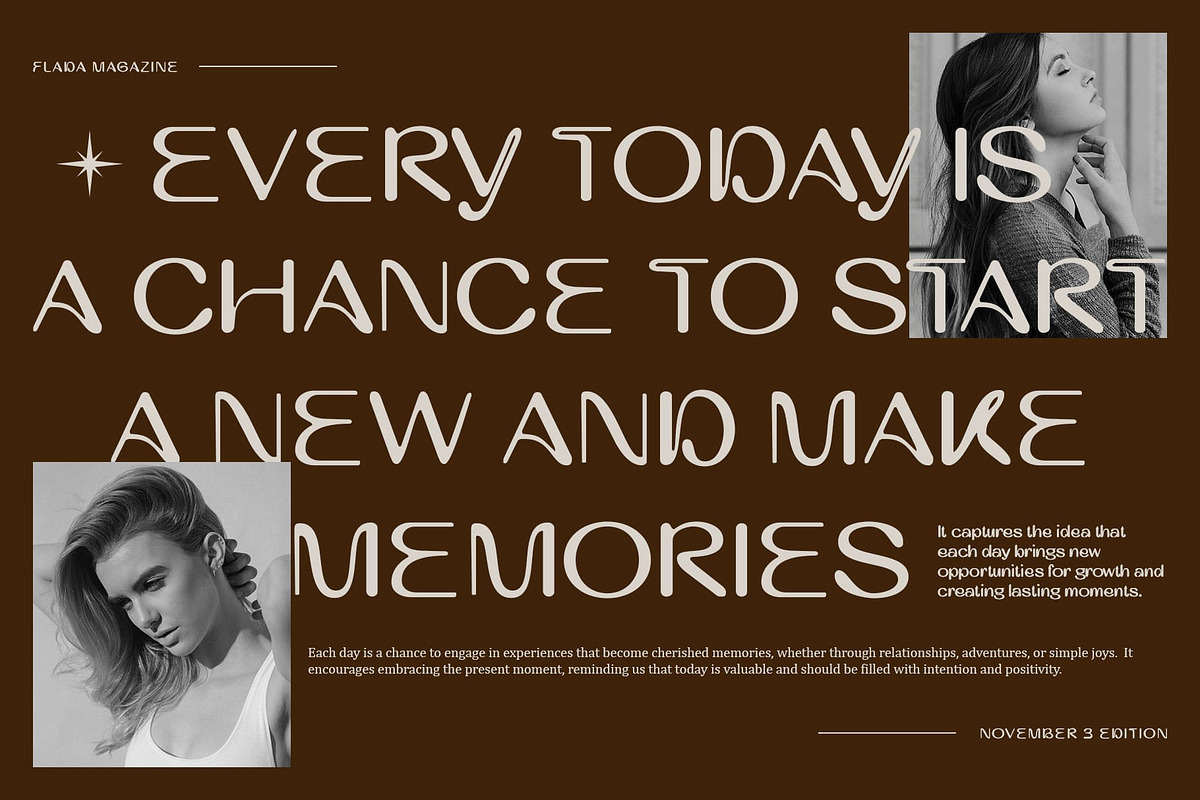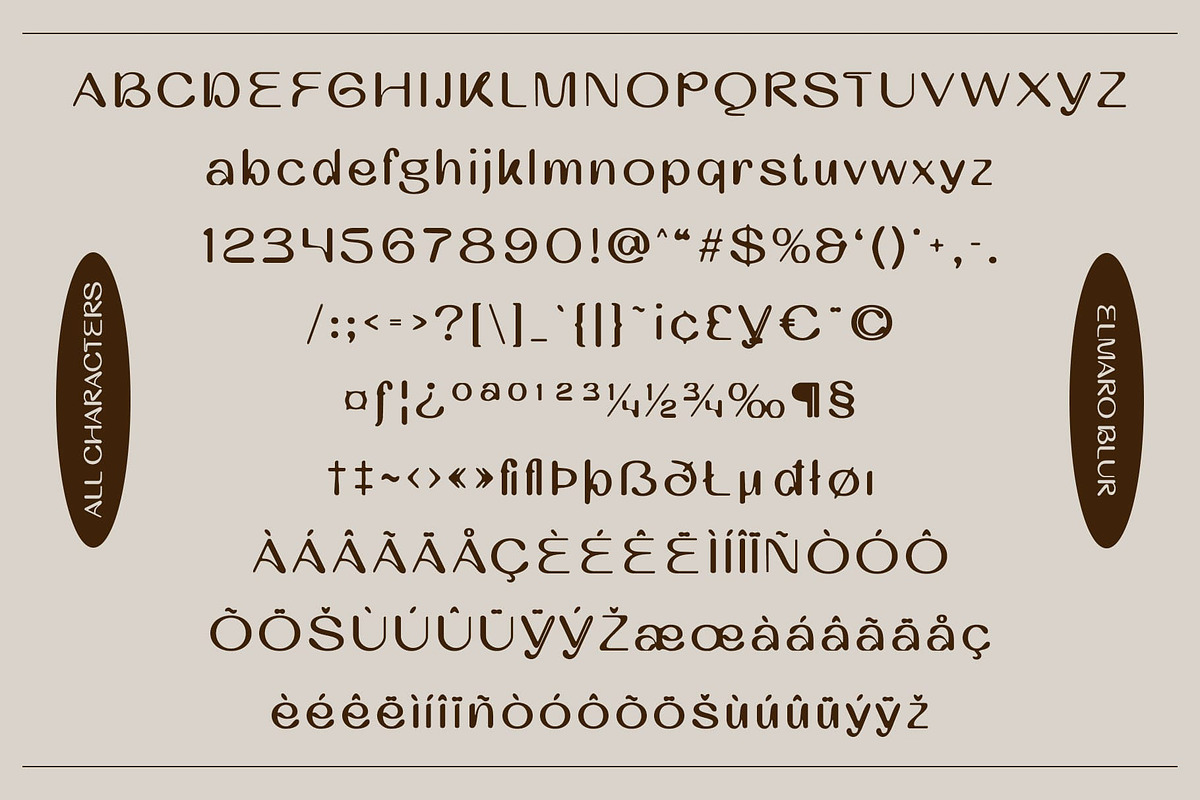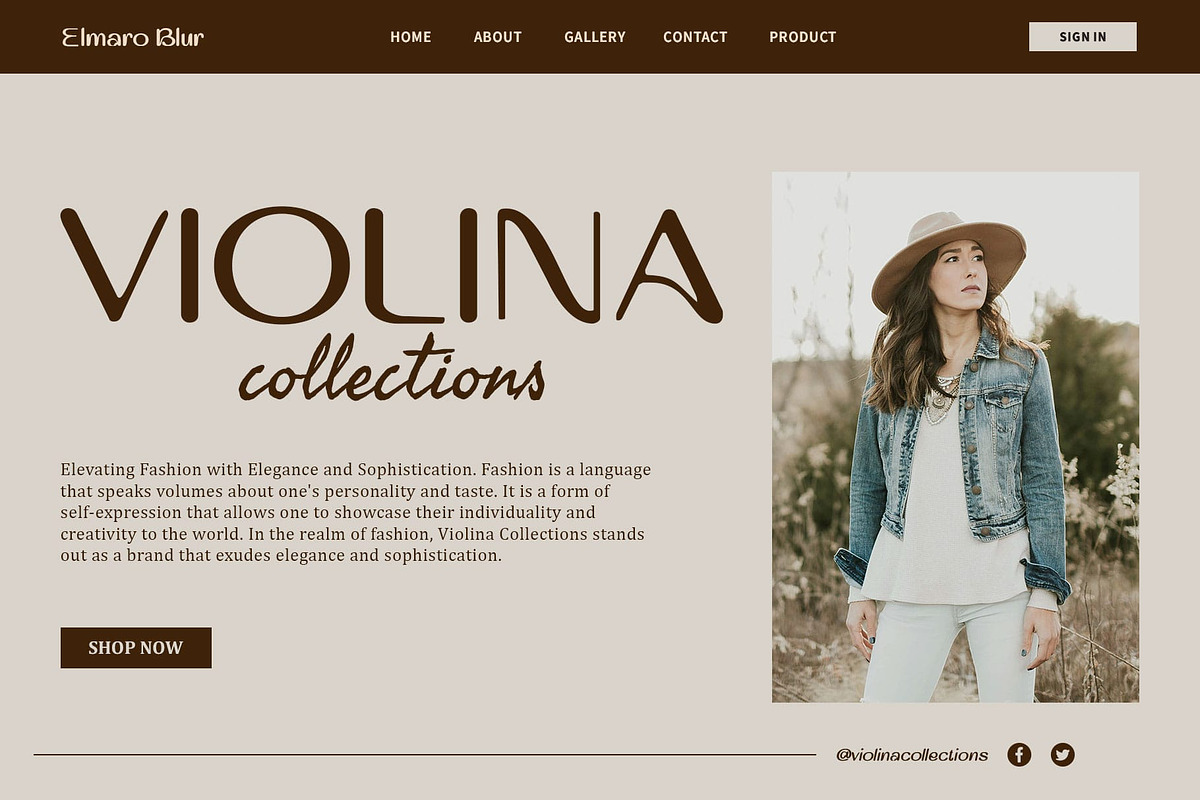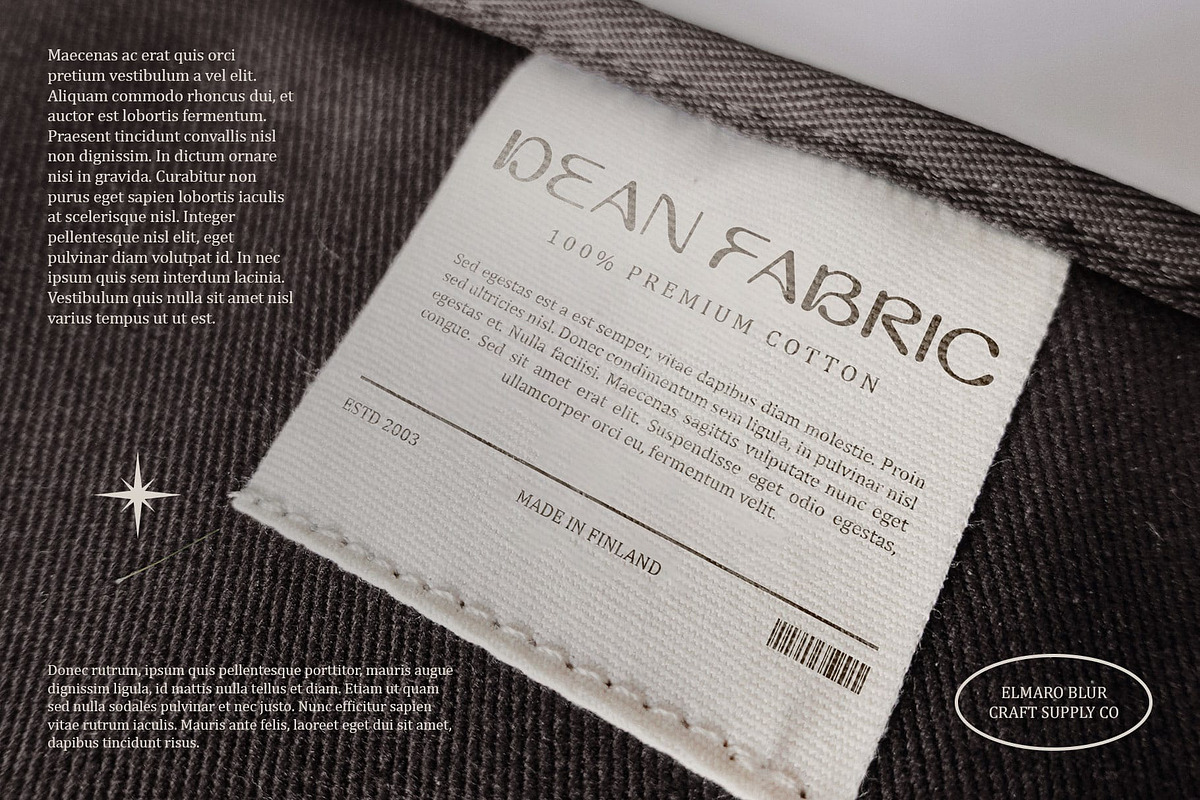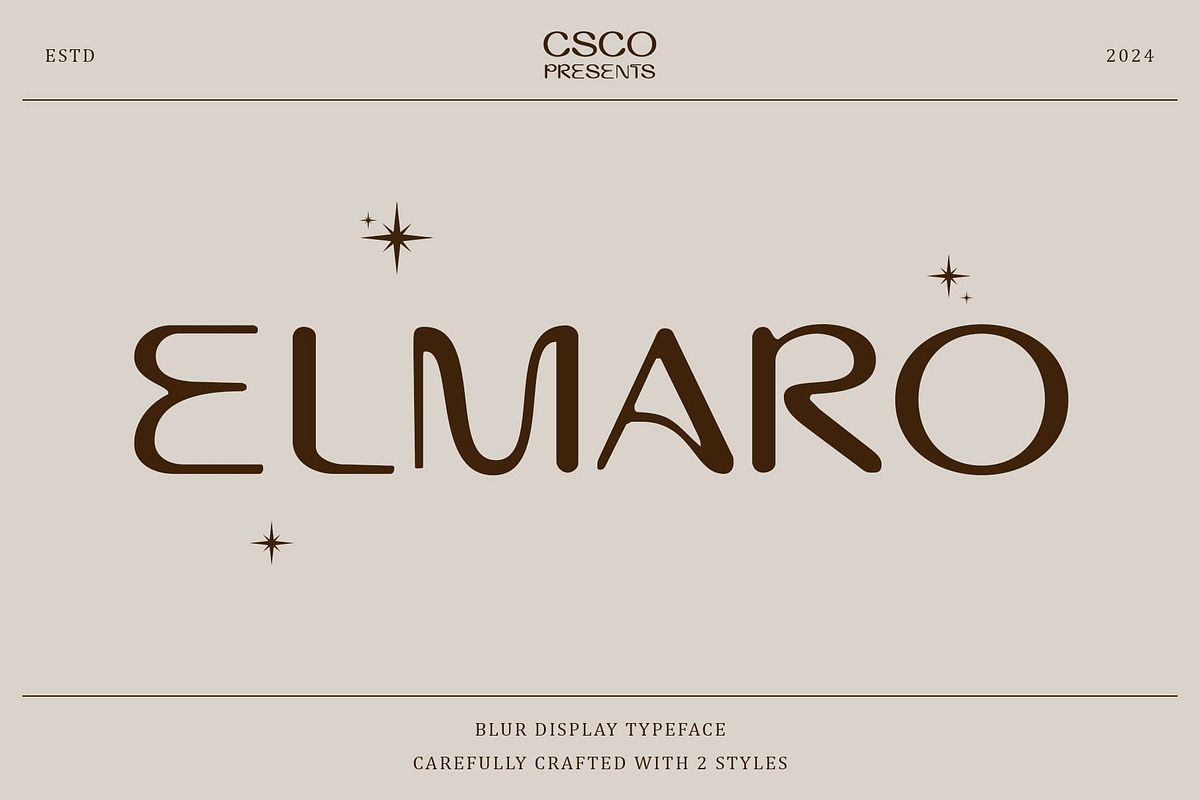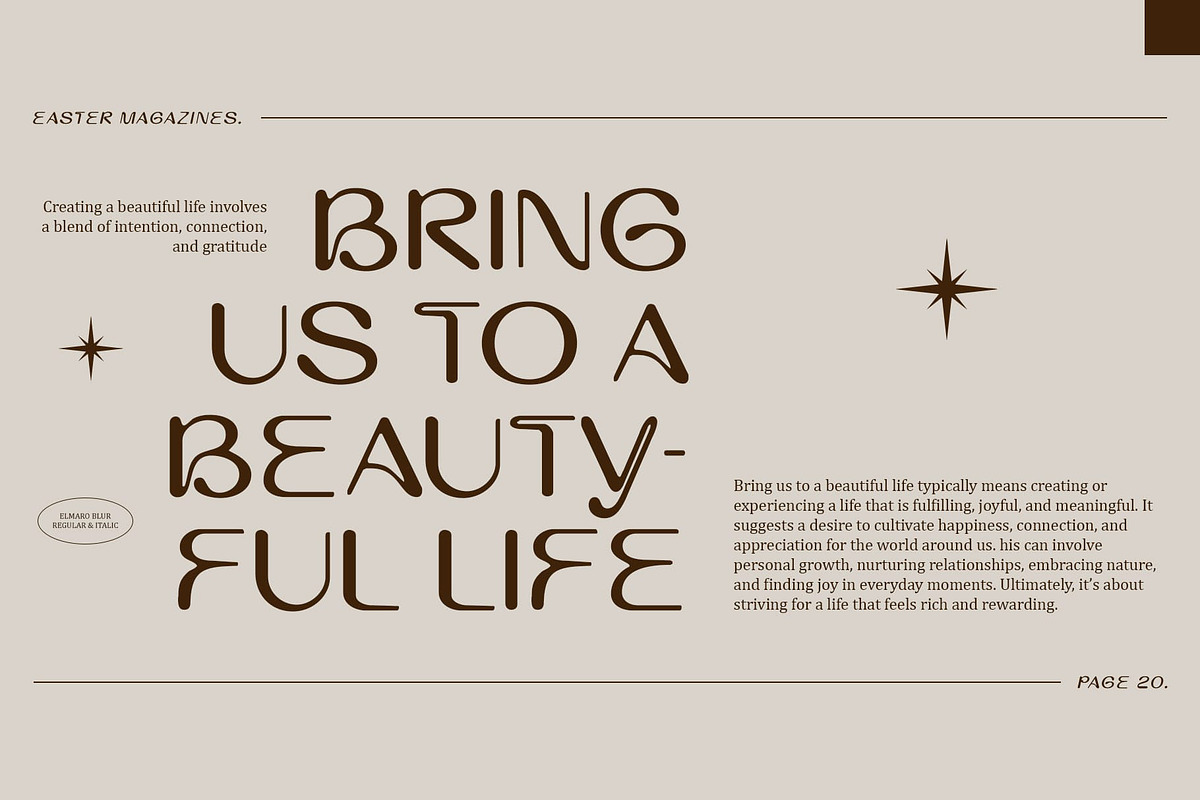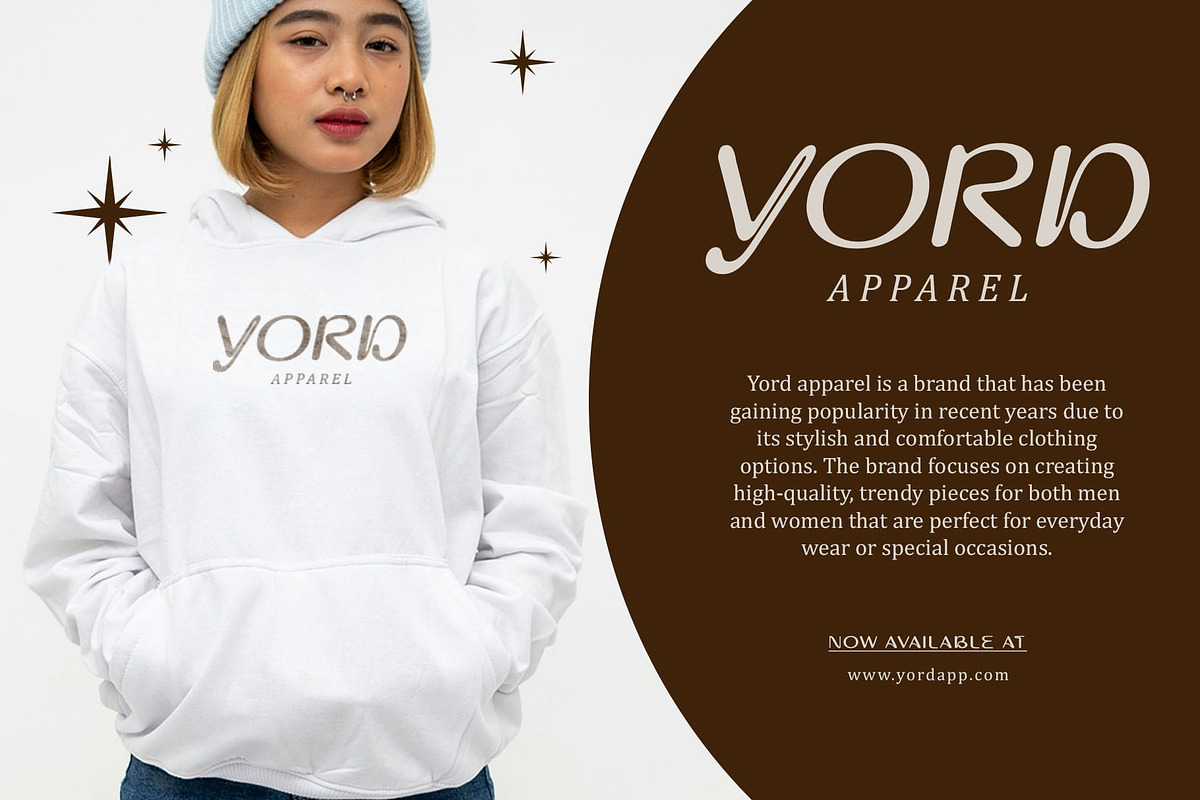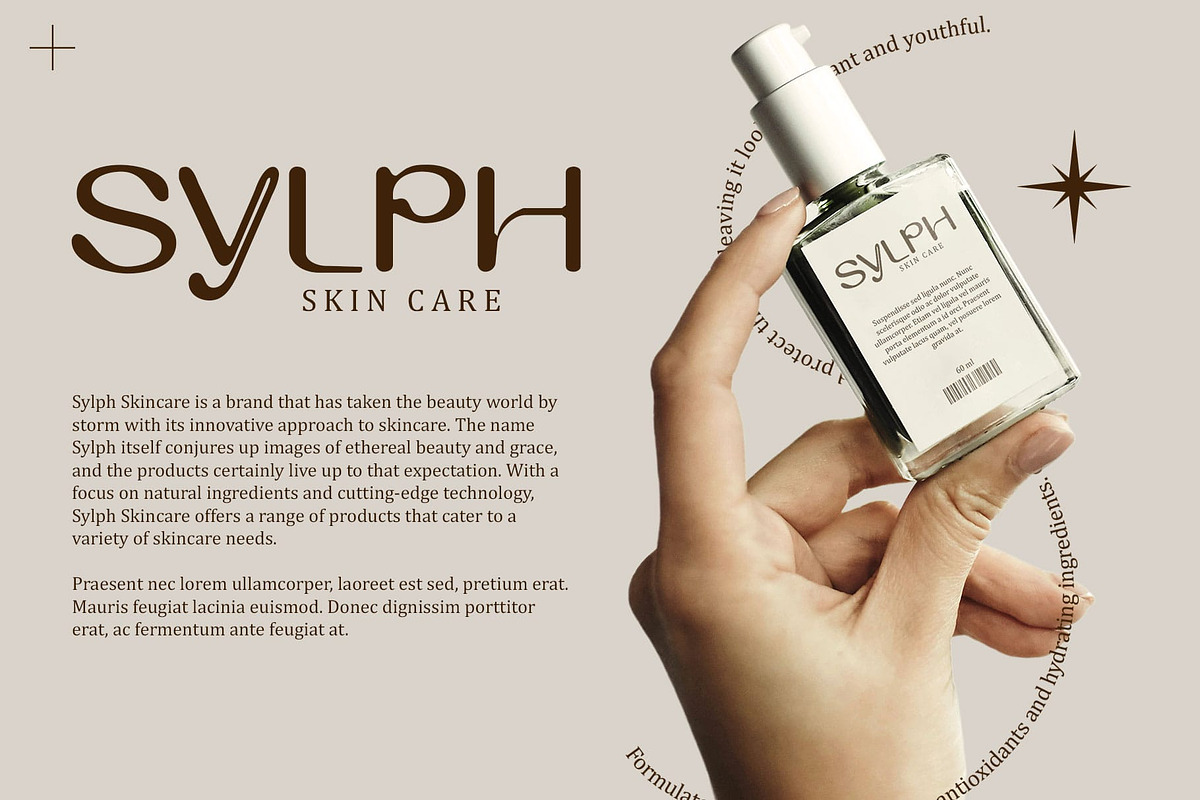
Elmaro Blur
Elmaro Blur: Futuristic Display Font with a Sci-Fi Twist
Inspired by Spacecraft and Alien Technology Elmaro Blur is a modern display font that draws inspiration from the otherworldly visuals of spacecraft and alien technology. This unique design element gives the font a futuristic and ethereal appearance, perfect for cutting-edge projects.
Enhanced with a Blur Effect The blur effect enhances the font’s visual appeal, adding a sense of motion and depth that makes your designs stand out. This feature creates a captivating and dynamic look, ideal for futuristic and innovative designs.
Ideal for Sci-Fi Projects and Tech Branding Elmaro Blur is perfect for sci-fi projects, tech branding, and any design that seeks to push the boundaries of visual aesthetics. Its futuristic charm and ethereal quality make it an excellent choice for creating an immersive and advanced visual experience.
Elevate Your Innovative Designs Choose Elmaro Blur to elevate your innovative designs with its sleek and otherworldly style. Whether you’re working on a sci-fi movie poster, tech branding, or any creative project that requires a touch of the extraordinary, this font adds a distinctive and captivating edge to your work.
- Elmaro Blur Regular
- Elmaro Blur Italic